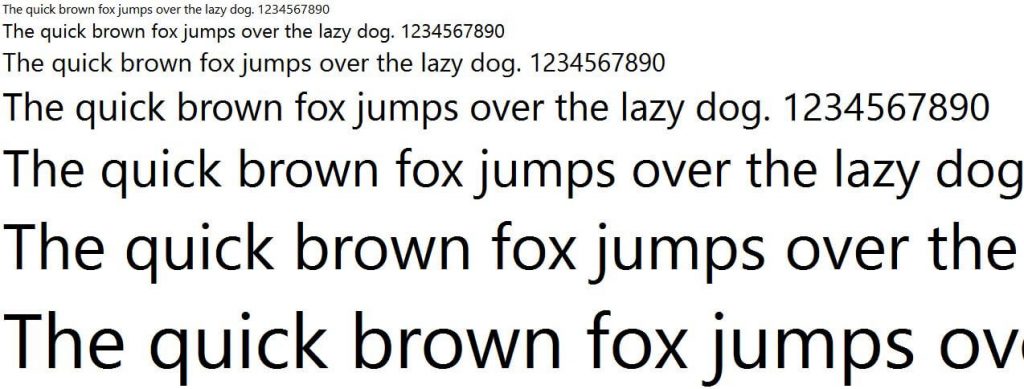
Nirmala UI Font is an Indic scripts typeface designed by Tiro Type Works and commissioned by Microsoft. It bears resemblance to the Devanagari font and was initially released with Windows 8 in 2012 as a UI font. This font supports languages such as Bengali, Devanagari, Kannada, Gujarati, Gurmukhi, Malayalam, Odia, Ol Chiki, Iskoola Pota, fmbindumathi font, Sora Sompeng, Tamil, and Telugu. Nirmala UI Font Features Together with a high-notch legible appearance and eager points it perfectly conveys the sensation of a brand new-day delusion or an art essay. It is also available Nirmala UI Hindi font free download for windows 10.
Every sort together within font sets has bought there possess individual expressions and as a result suitable for colossal designing purposes.